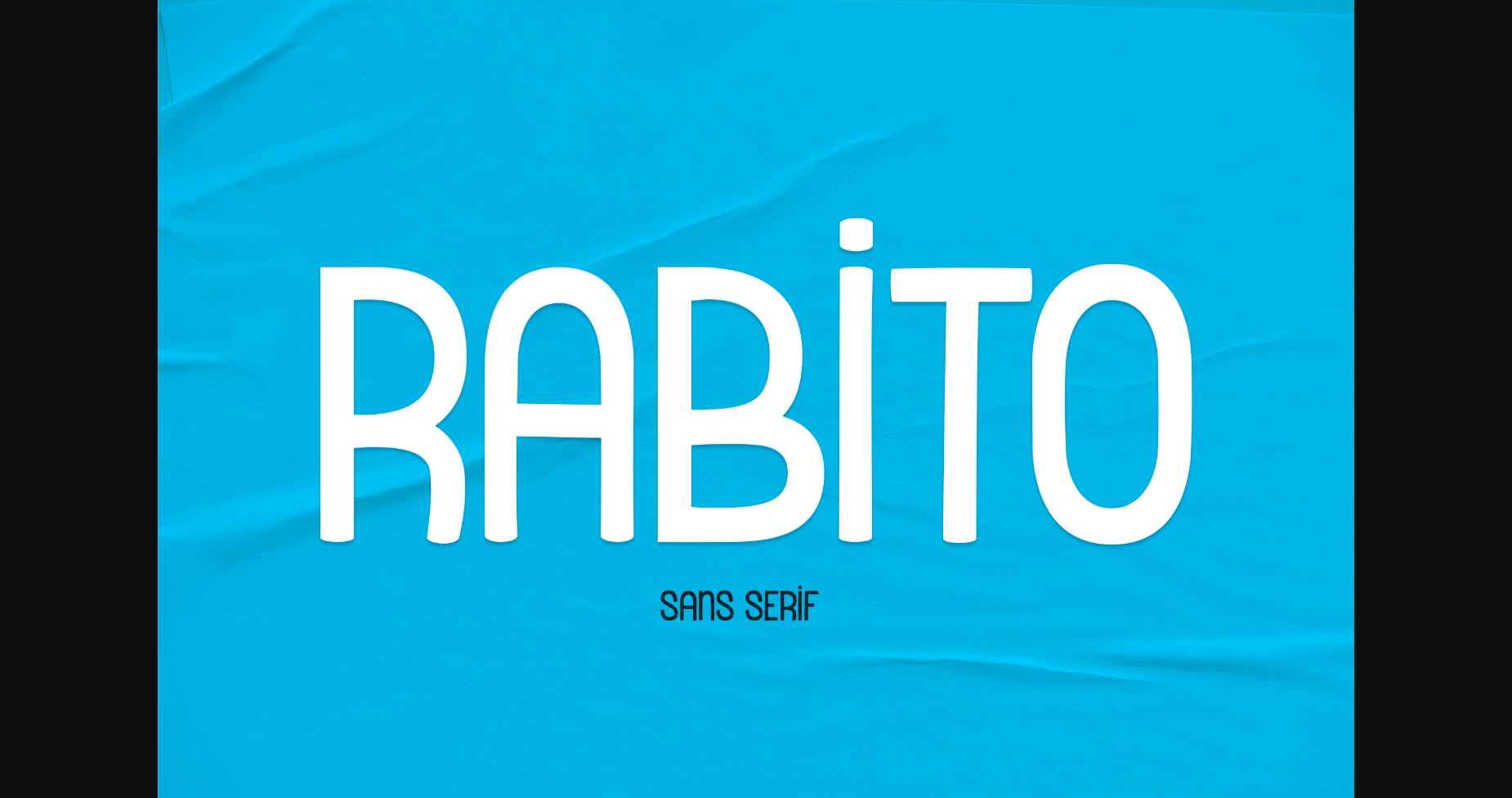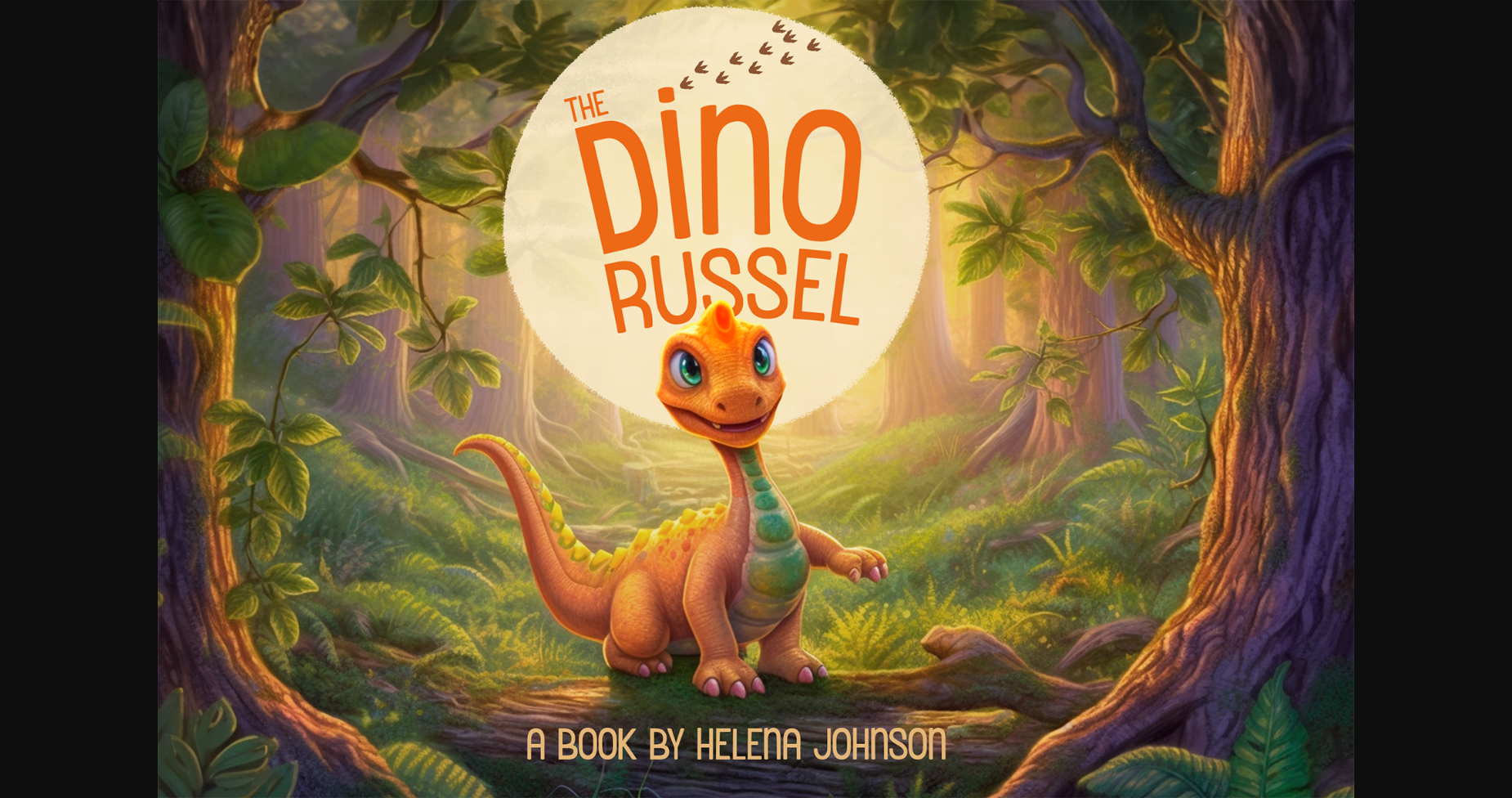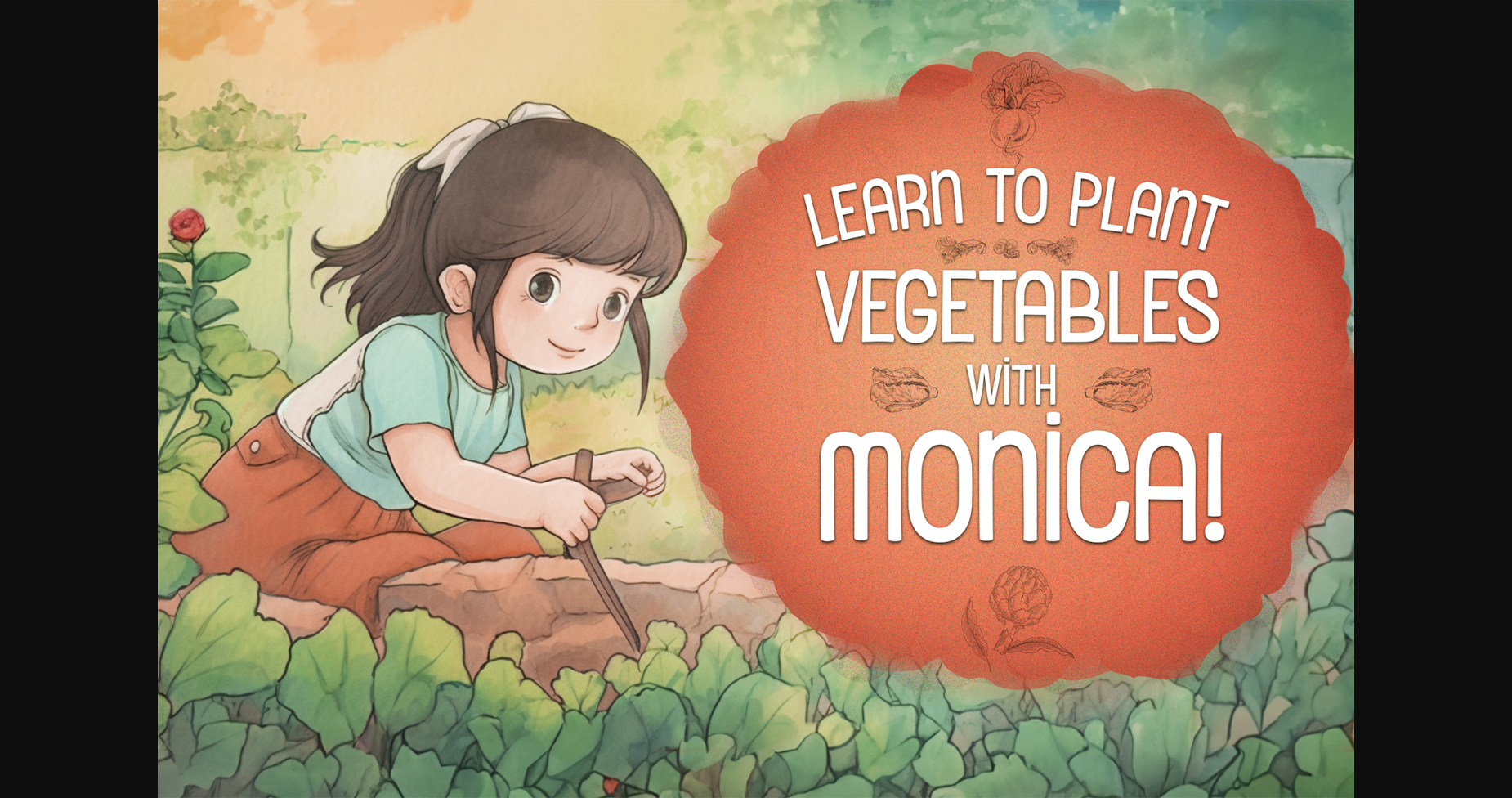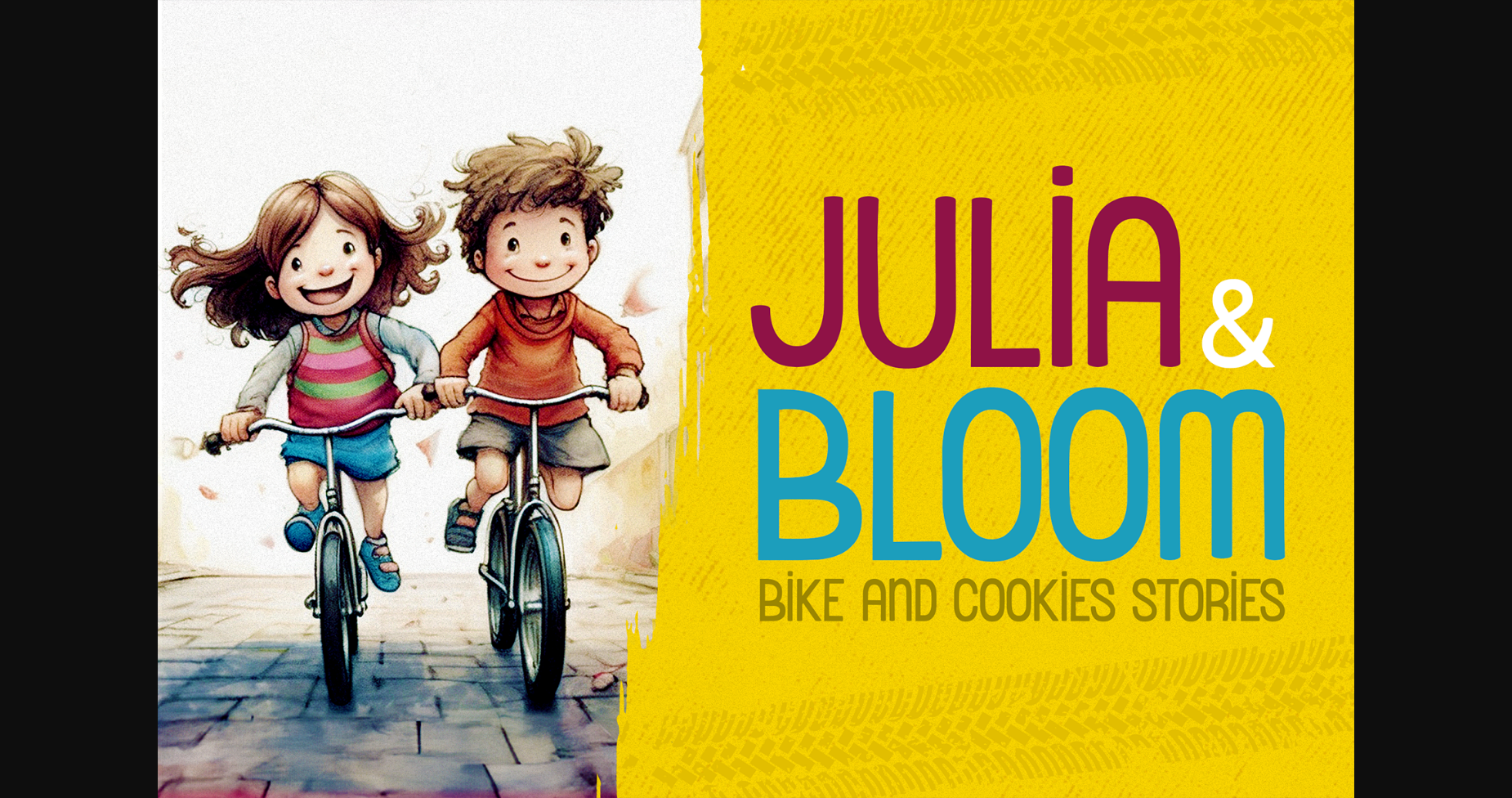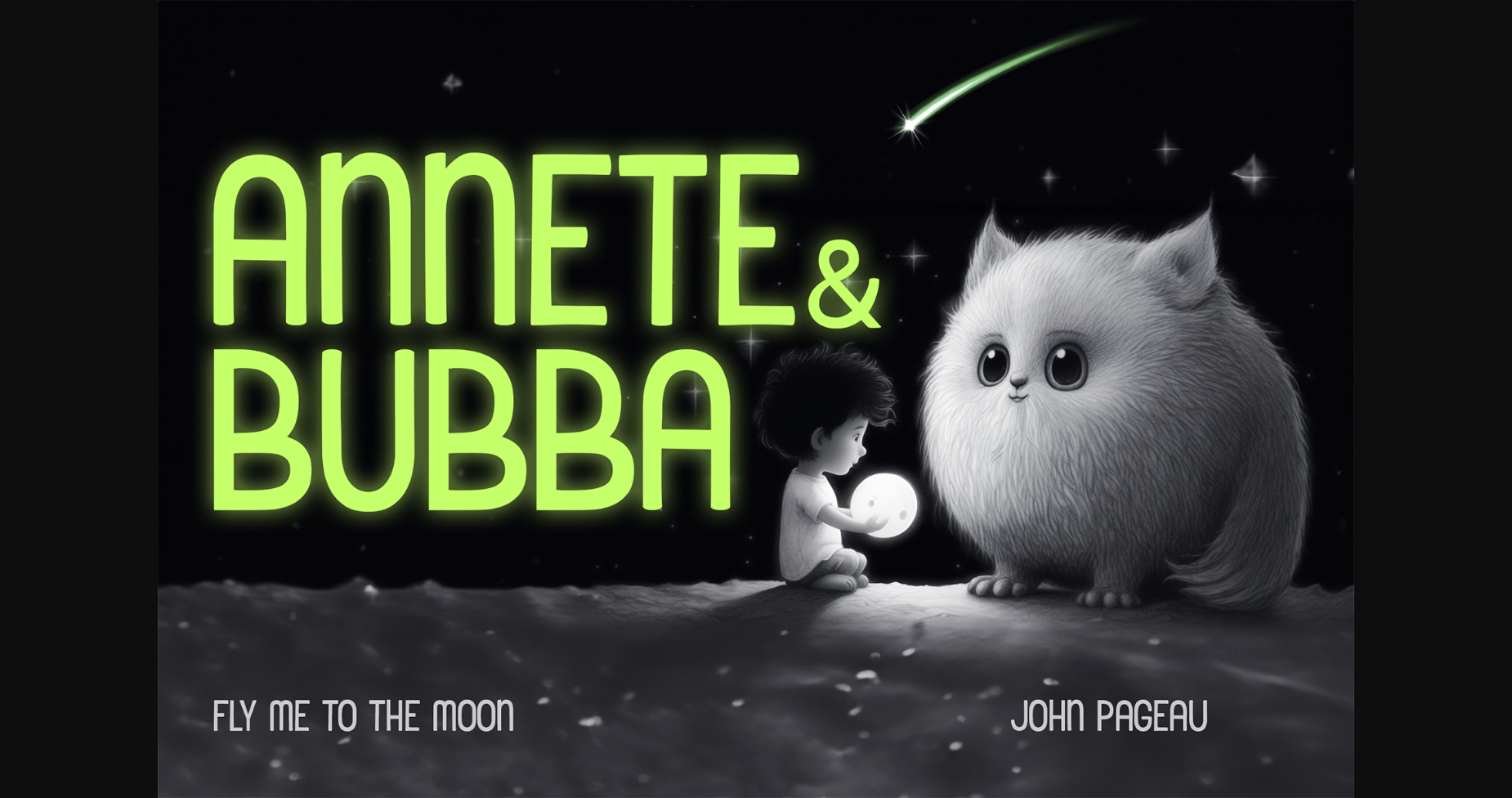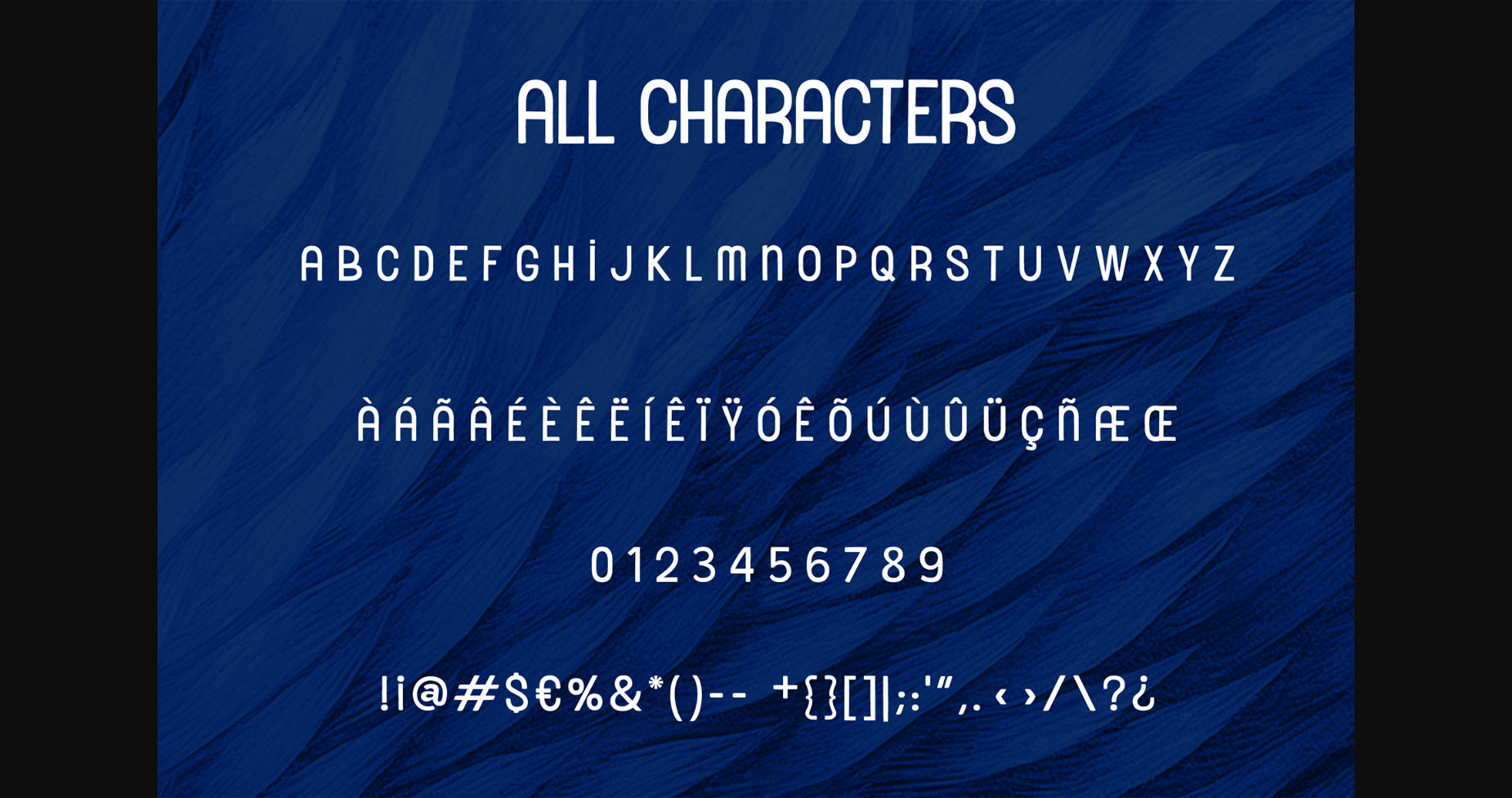
Rabito Font
About Rabito Font
Whether it’s a headline for a school project, a poster for a children’s event, or a catchy tagline for a toy advertisement, Rabito font guarantees that every message will make a lasting impact.